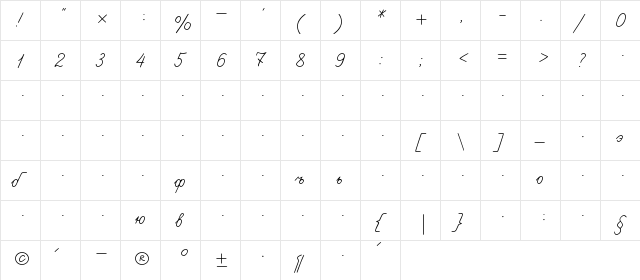
Propisi Regular
Design Context for Propisi Typeface
Propisi takes a measured approach to typography — its balanced proportions and neutral character make it a reliable workhorse for both digital and print work.